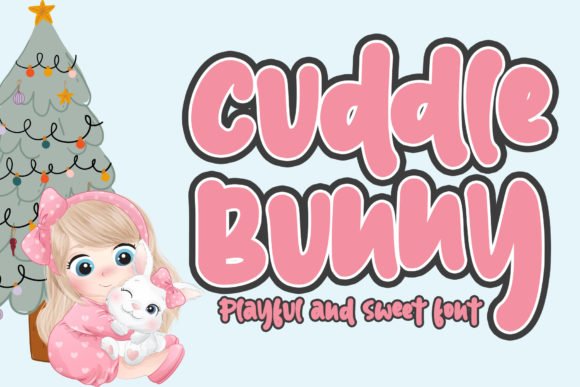
When Words Become Hugs
Have you ever sat down to create a design, and suddenly a burst of inspiration hits you? You envision a sweet, endearing message that radiates warmth and affection. That’s exactly what happens when you add the Cuddle Bunny Font to your design palette.
This playful display font is tailor-made for spreading joy and love through various creative mediums. Perfect for Easter cards, branding, stationery, blog designs, custom art, and more, the Cuddle Bunny Font adds a personal touch that makes any message feel like a hug. Its versatility and charm make it an invaluable asset for designers looking to infuse their work with a sense of whimsy and personality.
Whether you’re crafting a custom greeting or building a brand identity, the Cuddle Bunny Font is sure to bring a smile to your audience’s faces. In this article, we’ll delve into the world of this lovable font and explore its many uses, helping you unlock its full potential and create designs that truly cuddle the heart.
Cuddle Bunny Font Key Features
- Font Family: Cuddle Bunny is a unique, hand-drawn font designed to evoke a sense of playfulness and whimsy.
- Size: The font is available in a single weight, making it suitable for a wide range of applications.
- Resolution: Designed for use at medium to high resolutions (minimum 96 DPI) to showcase the intricate details of the hand-drawn design.
- Unique Characteristics: The font features a distinctive, hand-drawn feel with irregular letterforms and subtle imperfections, giving it a charming, organic look.
Cuddle Bunny Font Review
Overall, I have mixed feelings about the Cuddle Bunny Font. On one hand, it has some lovely qualities that make it a great choice for certain projects. ✨ For instance, the font’s whimsical and playful nature makes it perfect for children’s books, nursery decor, or any project that needs a touch of sweetness. The font’s soft curves and rounded edges also make it easy on the eyes, reducing visual fatigue for readers.
Here are some specific strengths and weaknesses I observed:
- ✨ Unique and distinctive design that stands out from more common fonts.
- ✨ Suitable for projects that require a lighthearted and friendly tone.
- ✨ Easy to read and understand, even at smaller font sizes.
However, there are some limitations to consider: ⚠️ The font may not be the best choice for projects that require a more professional or serious tone. Additionally, the font’s complexity and intricacy may make it more difficult to use in certain design contexts, such as logos or headings.
Overall, I would recommend the Cuddle Bunny Font for projects that require a playful and whimsical touch. While it may not be suitable for all projects, it’s a great choice for those who want to add a touch of sweetness and personality to their design.
Getting the Most Out of the Cuddle Bunny Font
Here are some tips to get the most out of the Cuddle Bunny Font:
- Use the font in combination with other playful and whimsical elements to create a cohesive design.
- Experiment with different font sizes and colors to add visual interest to your design.
- Use the font to add a touch of personality to your branding or marketing materials.
The Cuddle Bunny Font is perfect for:
- Children’s book illustrations and design.
- Playful branding and marketing materials.
- Whimsical greeting cards and party invitations.
Alternatives to Cuddle Bunny Font for Designers
Great Vibes is a modern script font that conveys a sense of playfulness and friendliness. It is ideal for use in titles, headings, and short text blocks where a casual, approachable tone is desired. Great Vibes has a more sophisticated feel compared to Cuddle Bunny Font, making it suitable for a wider range of design projects.